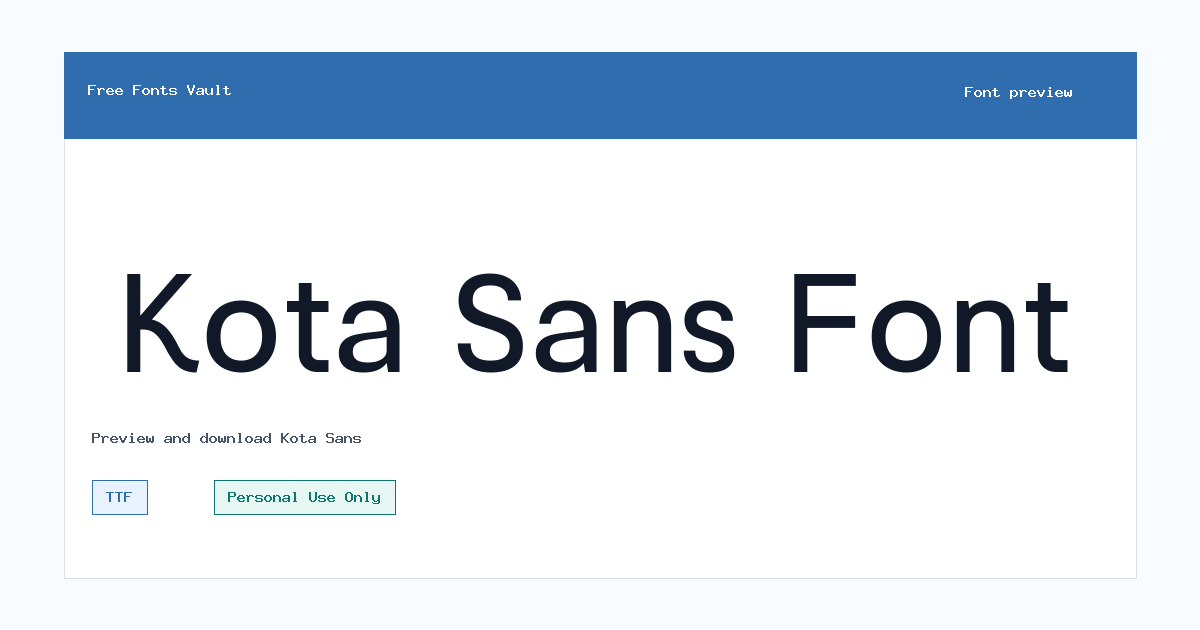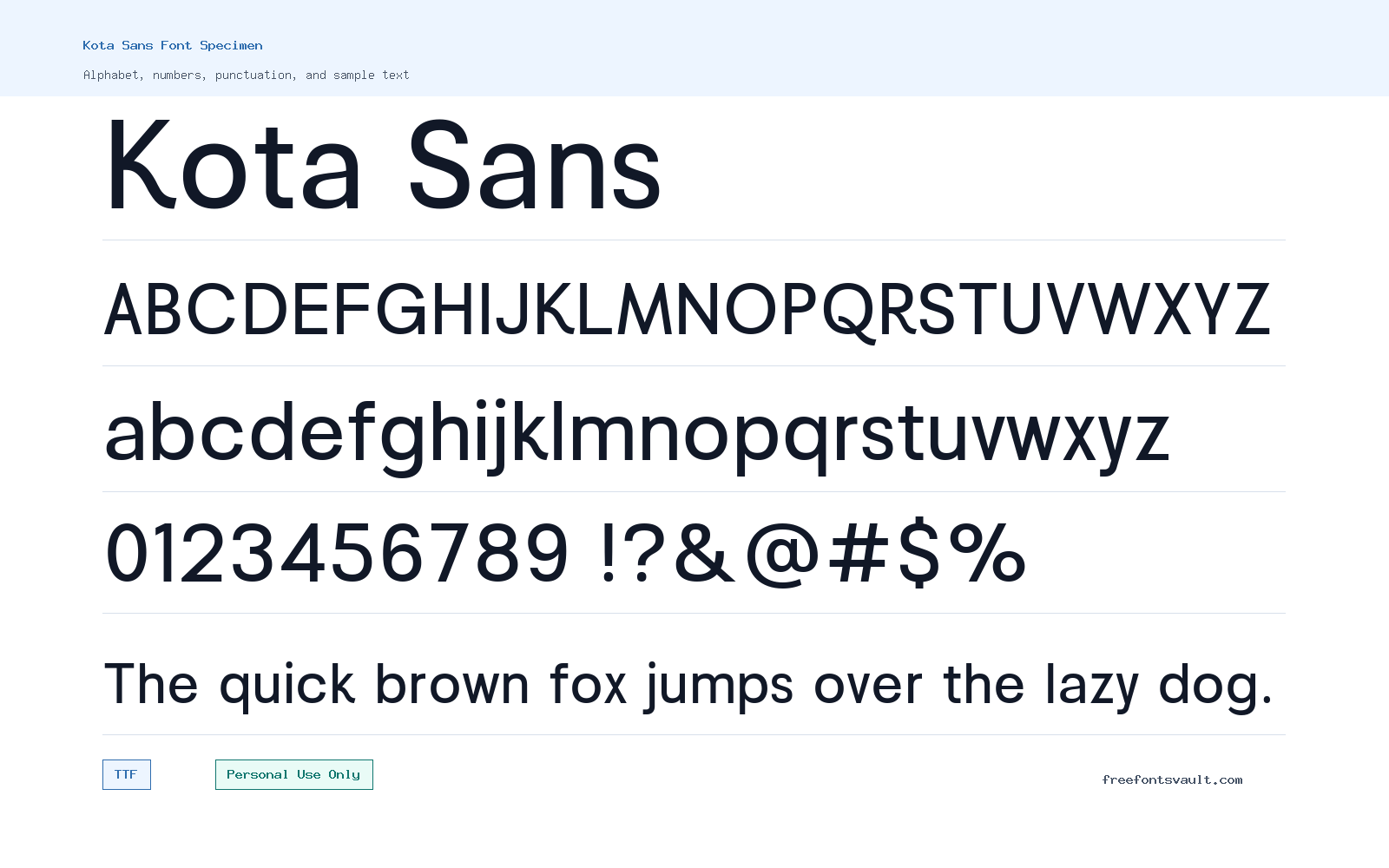
Kota Sans
- Designer Diki Pradipta Tri Atmojo
- Foundry Lettertype Studio Co.
Kota Sans is a clean sans serif font family with a demo regular style and a matching italic style. It is a practical choice when you want simple letterforms for short text, previews, mockups, and personal design experiments.
About Kota Sans
Kota Sans has the straightforward structure visitors usually expect from a sans serif: clear shapes, even rhythm, and a modern look that does not rely on heavy decoration. The regular style works best for titles, labels, social graphics, poster text, and simple branding drafts where you want the words to stay easy to read. The italic file gives you a second tone for emphasis, captions, quotes, or contrast beside the upright style.
- Simple sans serif appearance suited to clean short-text layouts
- Personal posters, social media images, and title mockups
- Logo drafts, labels, quotes, captions, and layout experiments
Kota Sans is credited to Diki Pradipta Tri Atmojo, with Lettertype Studio Co. listed as the foundry.
What is Kota Sans best used for?
It is best suited to short, clean text such as headings, posters, social graphics, labels, quotes, and design mockups.
Can I use Kota Sans for body text?
You can test it for body text, but preview it at the intended size first. It is safer to use it for headings or shorter passages unless the spacing and readability work well in your layout.
Who designed Kota Sans?
Kota Sans is credited to Diki Pradipta Tri Atmojo. Lettertype Studio Co. is listed as the foundry.